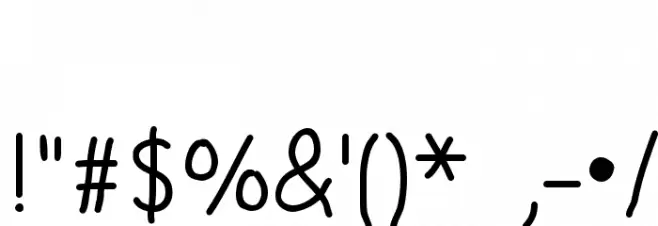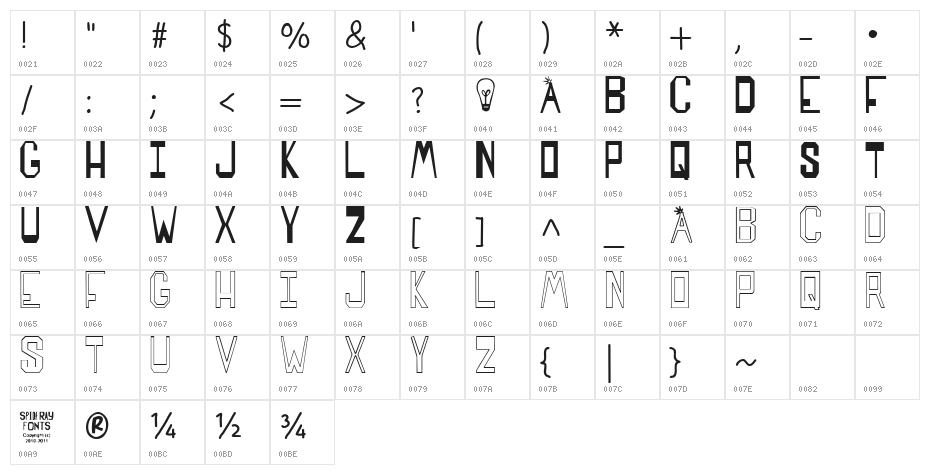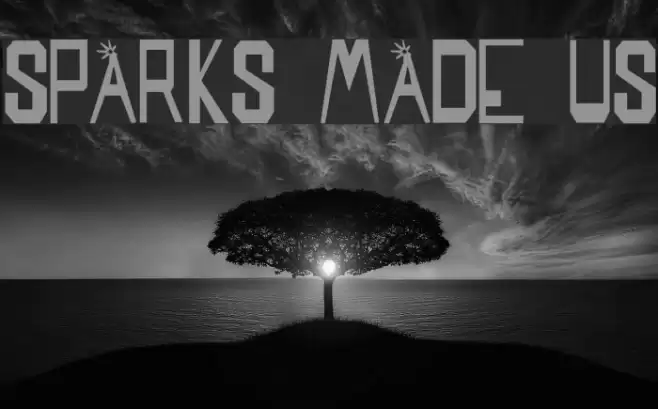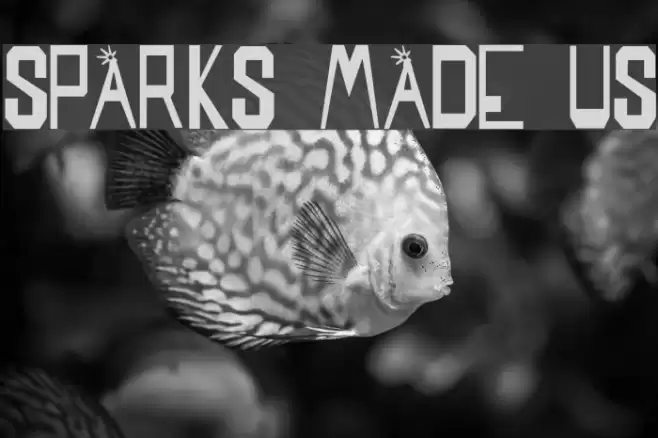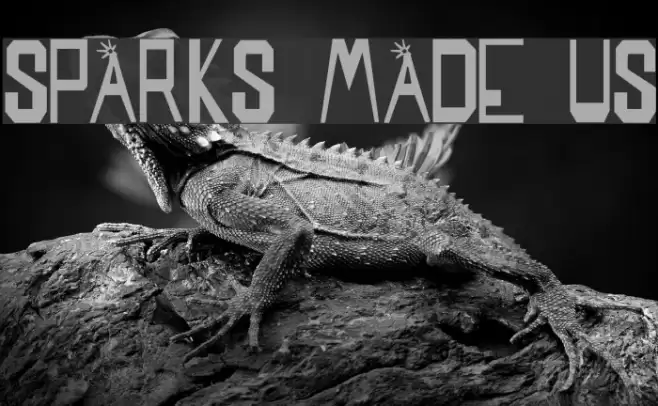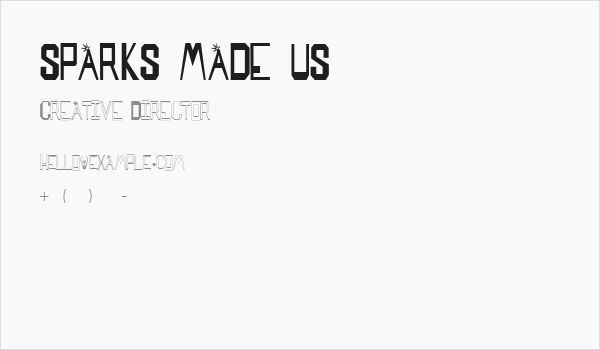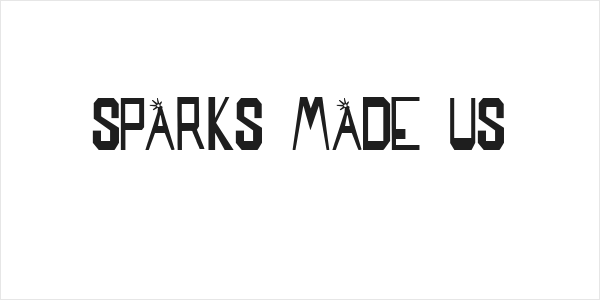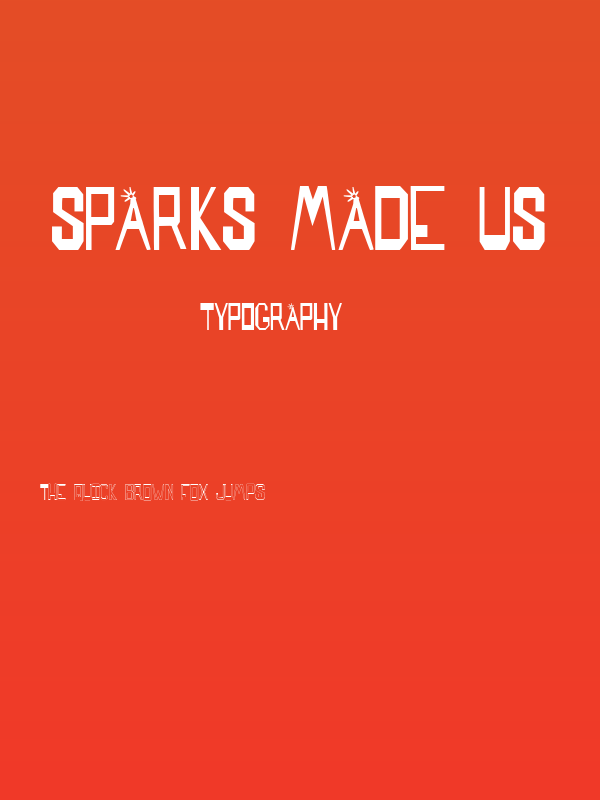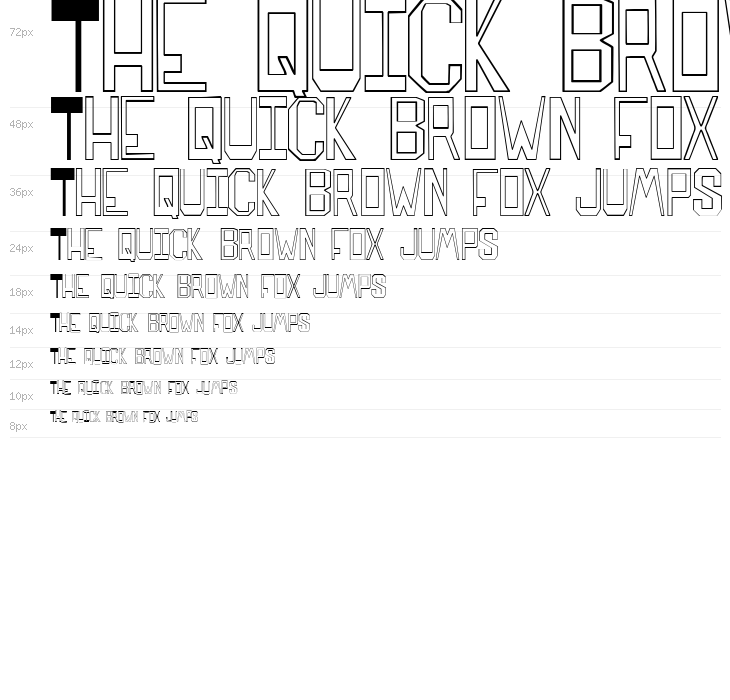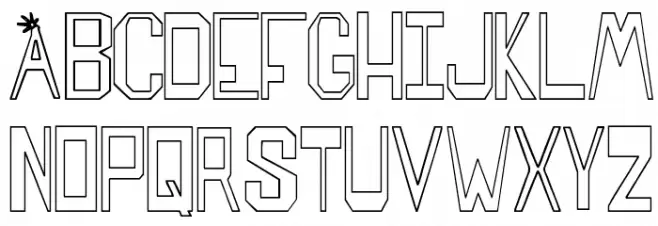
SPARKS MADE US Font
SPARKS MADE US Description
This font features a bold and geometric design with a strong presence. The uppercase letters are characterized by sharp angles and a blocky structure, giving them a modern and industrial feel. The outline version of the font adds a layer of versatility, allowing for creative applications in various design projects. The special characters maintain the same bold and angular style, ensuring consistency across all elements. The font's unique style makes it suitable for attention-grabbing headlines and branding materials.
| Proposed Projects | Ideal for branding, poster design, and headlines that require a strong visual impact. |